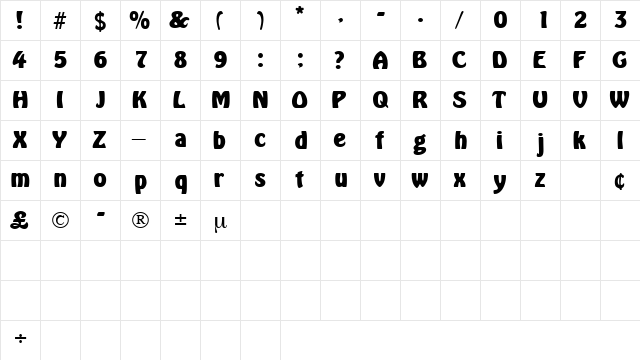
LoblollyDisplaySSK Regular
Design Context for LoblollyDisplaySSK Typeface
LoblollyDisplaySSK is built around its visual character rather than neutral utility — its distinctive forms are designed to make an impression at display sizes.
Font Pairing: Pair with a clean neutral sans-serif for body copy to let LoblollyDisplaySSK's character lead without overwhelming the composition.
Pro Tip: Treat LoblollyDisplaySSK as the centrepiece of your typographic hierarchy. One strong heading set in a decorative face can carry an entire layout.